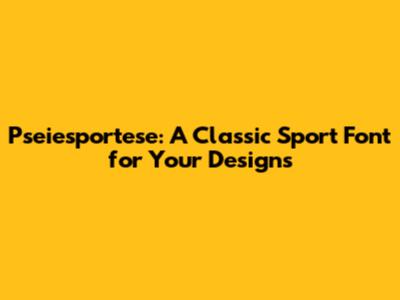
- Sports Team Logos and Branding: This is a no-brainer. Pseiesportese is perfect for creating logos, team names, and other branding materials for sports teams of all levels. Whether you're designing for a professional franchise or a local youth league, this font will give your brand a polished and professional look.
- Sports Apparel and Merchandise: Want to design a t-shirt that captures the spirit of the game? Pseiesportese is your go-to font. It looks great on jerseys, hats, hoodies, and other apparel items. You can also use it to create eye-catching designs for posters, banners, and other promotional materials.
- Event Posters and Flyers: Planning a sports tournament, a marathon, or some other athletic event? Pseiesportese can help you create posters and flyers that grab attention and convey a sense of excitement. Its bold letterforms will ensure that your message stands out from the crowd.
- Video Game Design: If you're developing a sports-themed video game, Pseiesportese can be a great choice for in-game text, menus, and other user interface elements. It will help to create a cohesive and immersive gaming experience.
- Retro-Themed Designs: Even if your project isn't directly related to sports, Pseiesportese can still be a valuable asset. Its classic style makes it ideal for creating retro-themed designs for posters, advertisements, and other marketing materials. Think vintage soda ads, old-school diner menus, and other nostalgic designs.
- Pair it with a contrasting font: To create visual interest, try pairing Pseiesportese with a contrasting font. A clean, modern sans-serif font can be a great choice for body text or secondary elements. This will help to balance out the boldness of Pseiesportese and prevent your design from looking too overwhelming.
- Use it sparingly: While Pseiesportese is a great font, it's best used sparingly. Overusing it can make your design look cluttered and overwhelming. Stick to using it for headlines, logos, and other key elements.
- Experiment with colors: Pseiesportese looks great in a variety of colors. Try experimenting with different color combinations to find one that suits your project. Classic sports colors like red, white, and blue are always a safe bet, but don't be afraid to get creative and try something unexpected.
- Pay attention to kerning and tracking: Kerning and tracking refer to the spacing between letters. Adjusting these settings can have a big impact on the readability and overall appearance of your text. Make sure to fine-tune the kerning and tracking to ensure that your text looks polished and professional.
- Consider using alternates: Some versions of Pseiesportese come with alternate characters. These can add even more visual interest to your designs. Experiment with using alternates to create unique and eye-catching typography.
- Sports Team Logos: Many sports teams have adopted Pseiesportese for their logos and branding materials. Its bold, classic style conveys a sense of strength and tradition, making it a perfect choice for teams of all levels.
- Apparel Designs: Pseiesportese is a popular choice for t-shirt designs, hoodies, and other apparel items. Its versatility and legibility make it a great option for creating eye-catching designs that stand out from the crowd.
- Event Posters: Event organizers are using Pseiesportese to create posters and flyers for sports tournaments, marathons, and other athletic events. Its bold letterforms and classic style help to grab attention and convey a sense of excitement.
- Website Headers: Some websites are using Pseiesportese in their headers and titles. Its strong presence makes it a great choice for creating a memorable first impression.
Hey guys! Are you on the hunt for a font that screams classic sports vibes? Look no further! Today, we're diving deep into Pseiesportese, a font that's making waves in the design world. Whether you're creating a logo for a sports team, designing merchandise, or just want to add a touch of athletic flair to your project, Pseiesportese might just be your new best friend. Let's explore what makes this font so special and how you can make the most of it.
What Makes Pseiesportese Stand Out?
When it comes to sports-themed fonts, there are tons of options out there. So, what sets Pseiesportese apart from the crowd? First off, its design is heavily inspired by classic sports typography. Think vintage baseball jerseys, old-school boxing posters, and retro basketball ads. It's got that timeless feel that can instantly transport your audience to the golden age of sports. The designers behind Pseiesportese have clearly done their homework, paying close attention to the details that define this aesthetic.
One of the key elements is its bold, blocky letterforms. Each character is strong and sturdy, conveying a sense of power and resilience – qualities that are often associated with sports. The font also features subtle variations in weight and width, adding visual interest and preventing it from looking too monotonous. This is crucial because a font that's too uniform can come across as bland and uninspired. Pseiesportese strikes a perfect balance between consistency and character, making it a versatile choice for a wide range of applications.